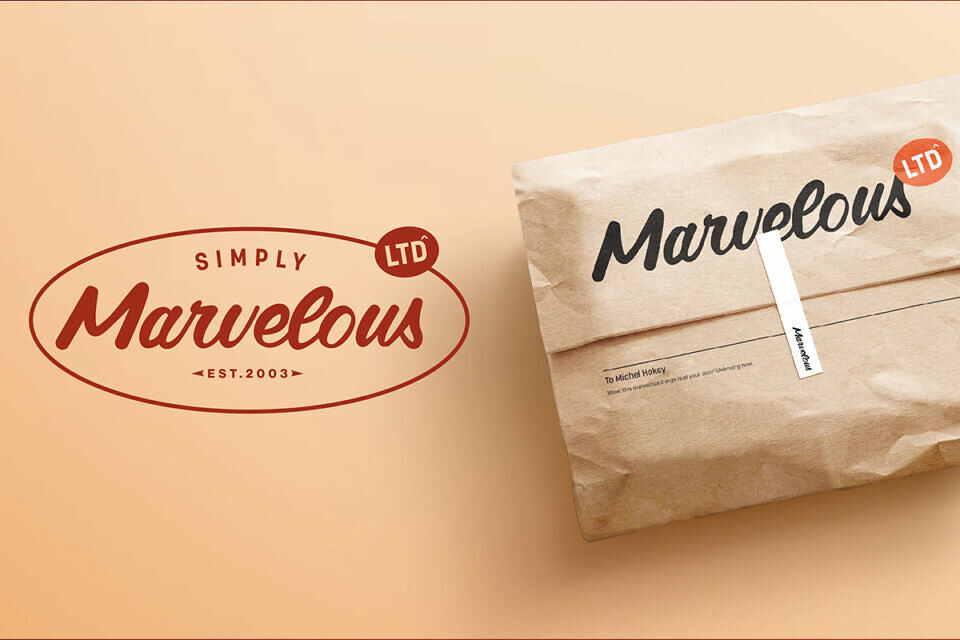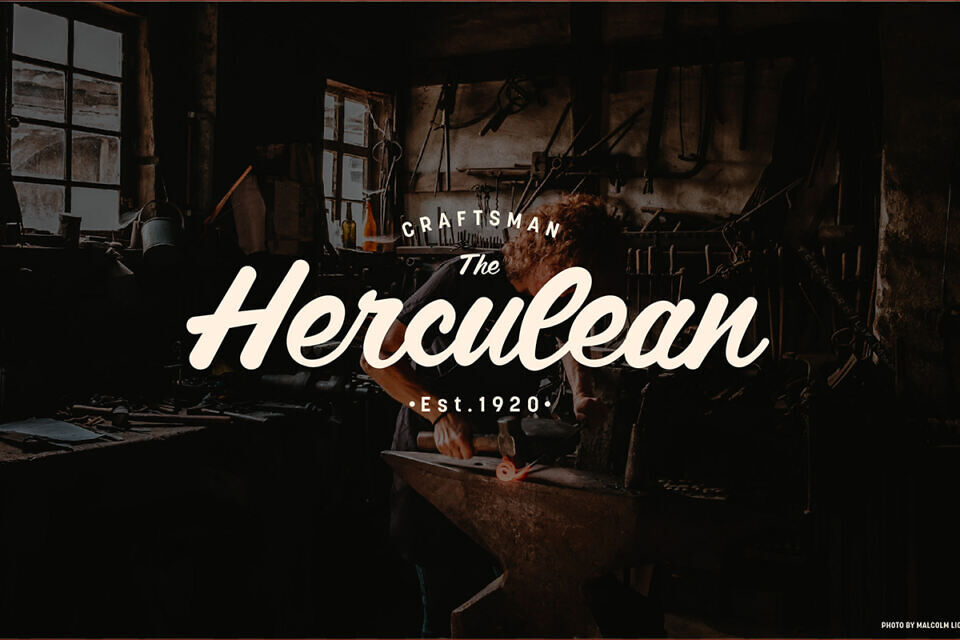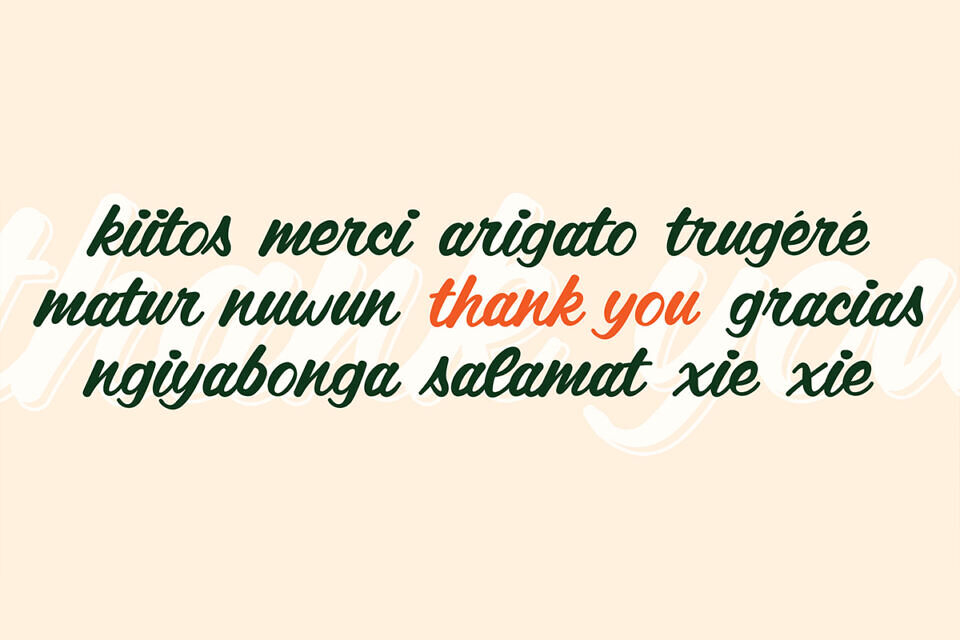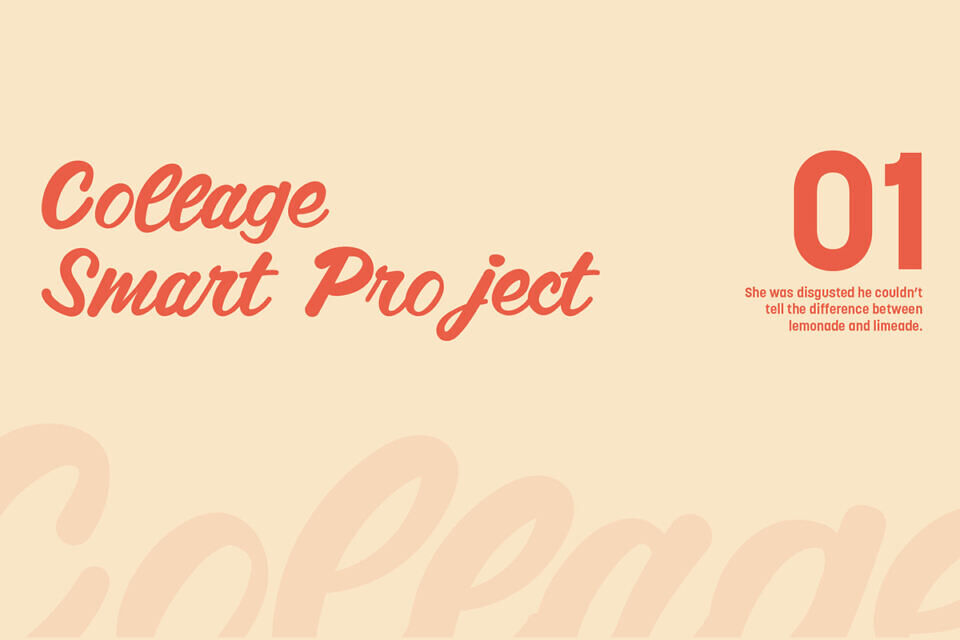
Valdice Font
Valdice is a bold, expressive script font that blends the elegance of calligraphy with modern strength. Its thick, flowing strokes and carefully crafted curves create a striking balance of power and grace.
Ideal for logos, headlines, packaging, and branding, Valdice delivers a confident presence while maintaining fluidity and charm. Whether used for luxury designs or vibrant, playful projects, this versatile font brings personality and flair to any layout.
More than decorative, Valdice makes a statement—perfect for designers seeking to combine bold impact with sophisticated script style.